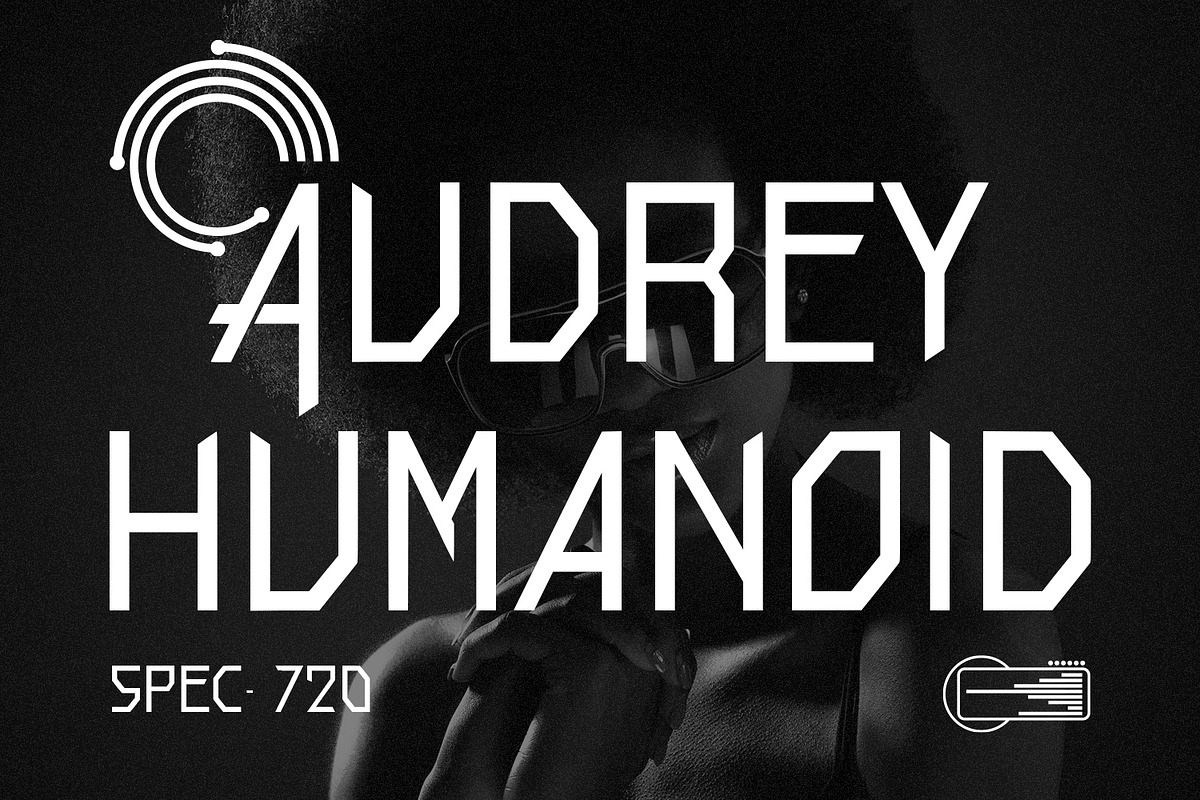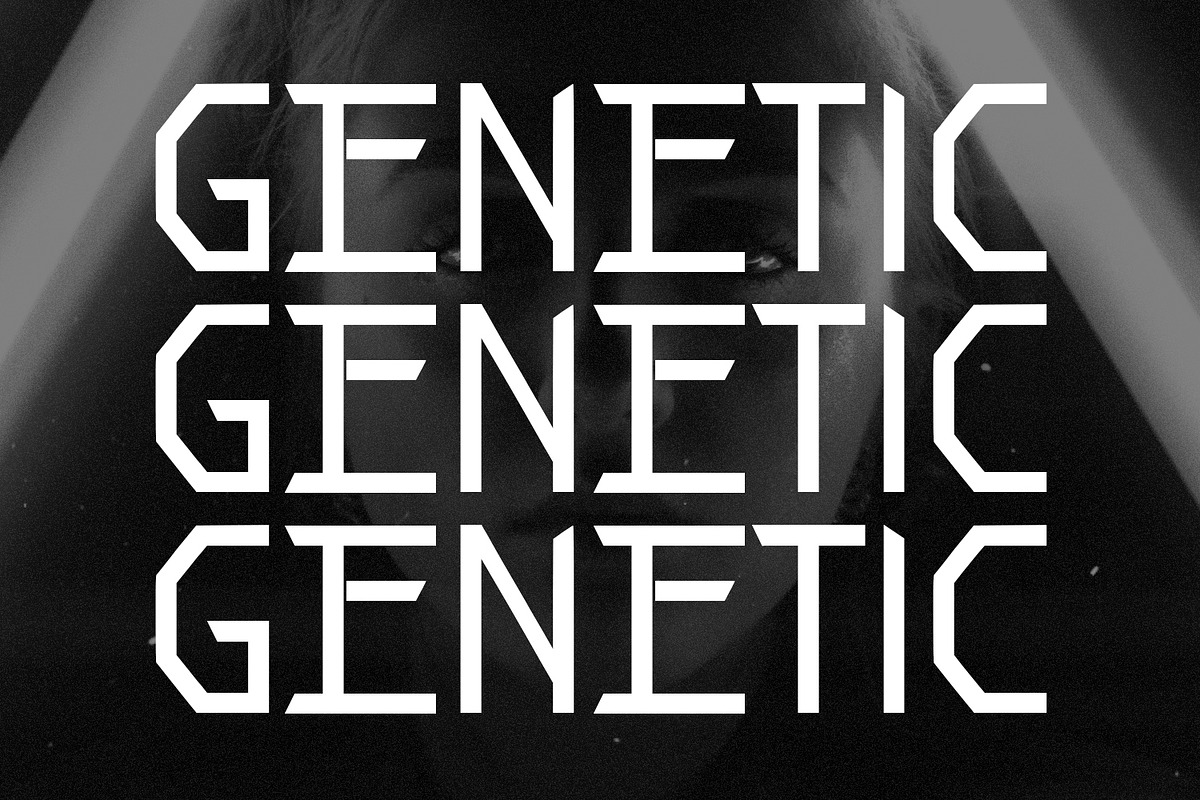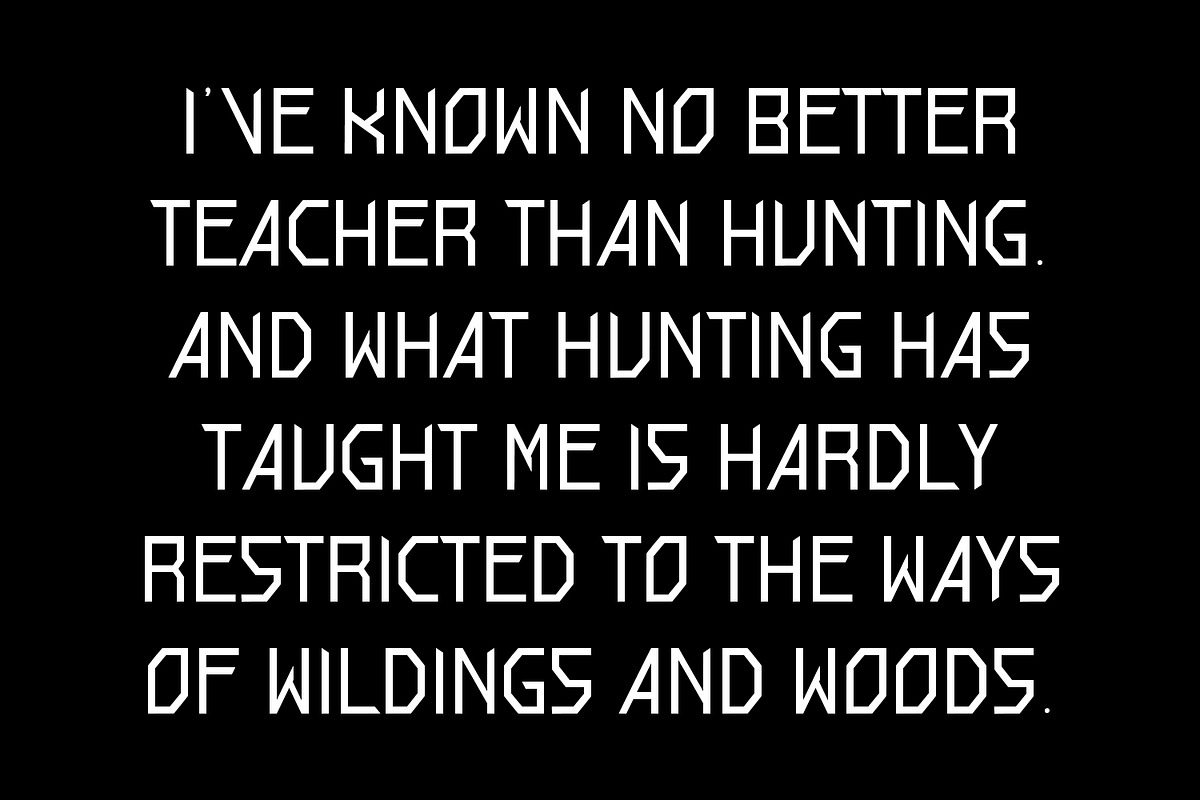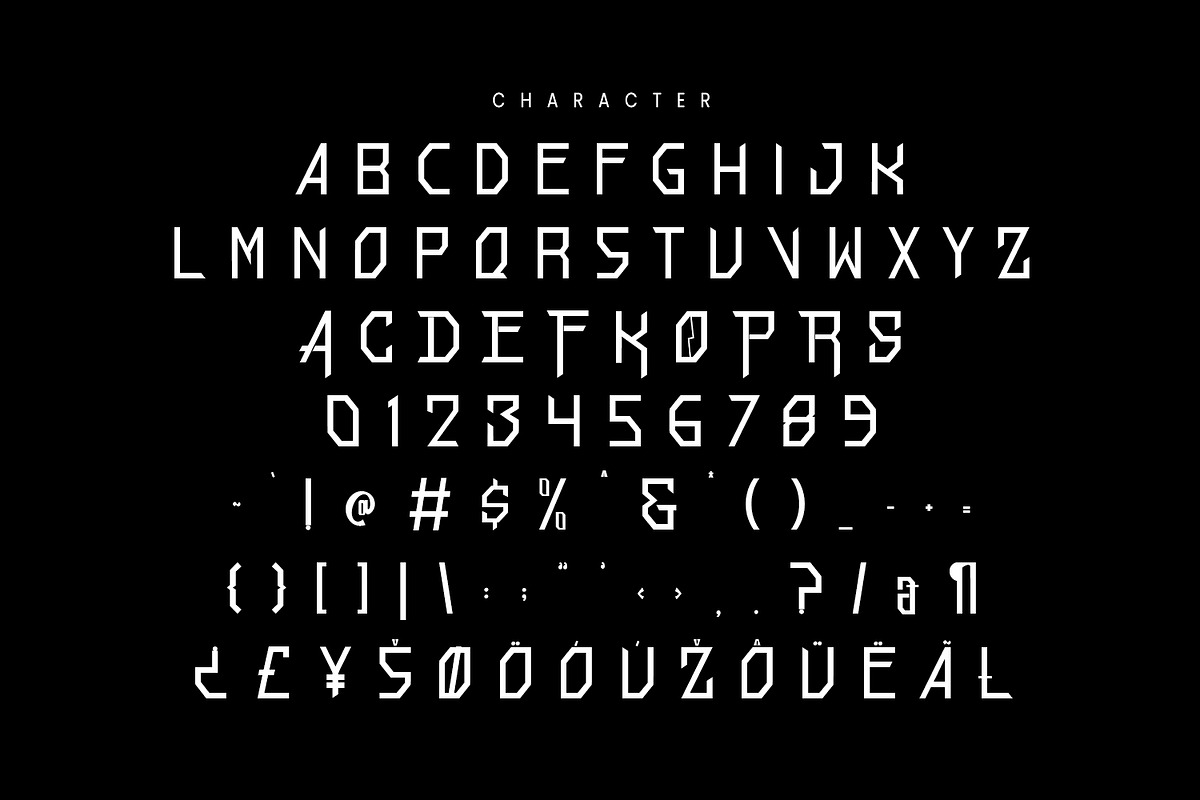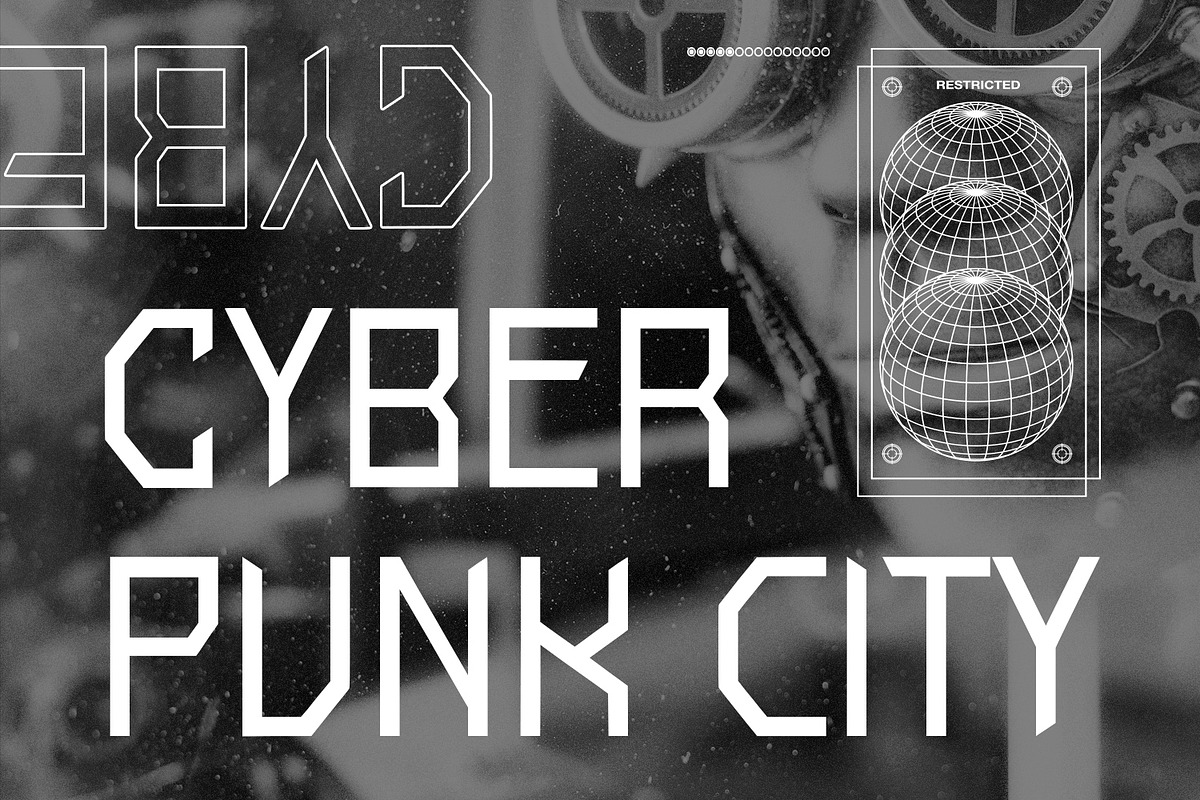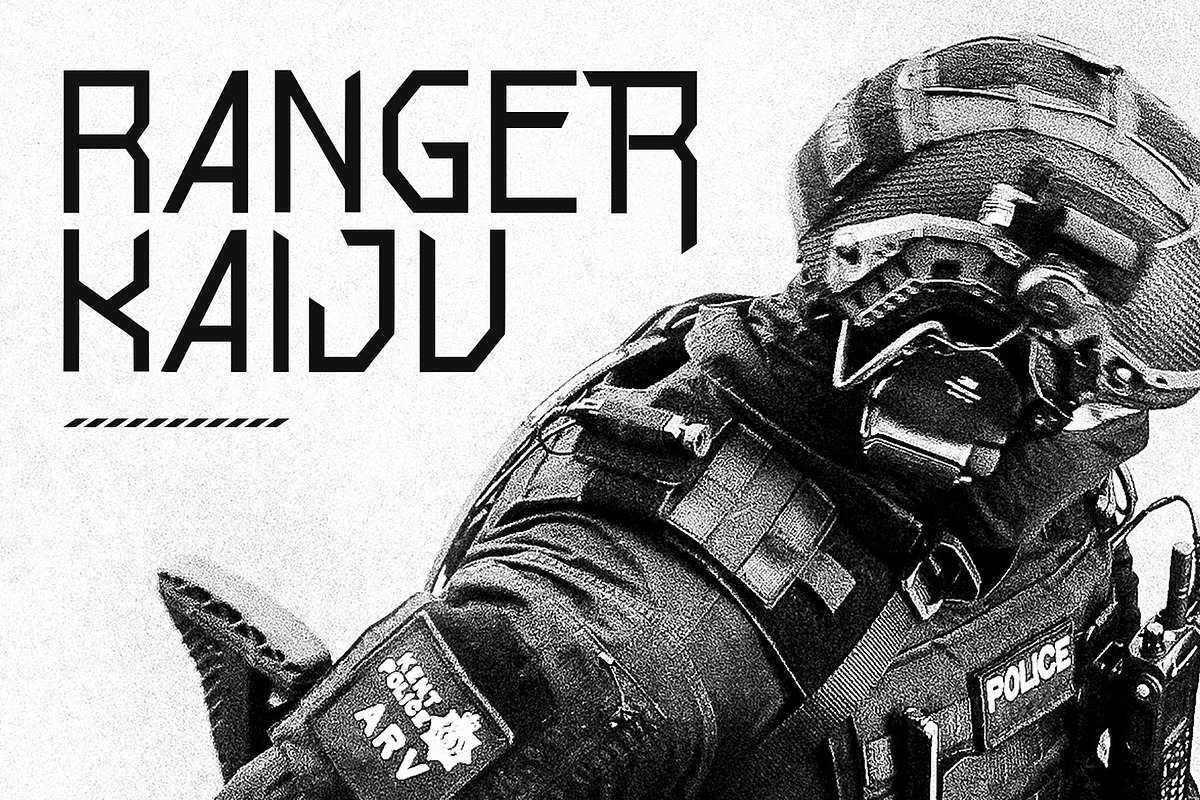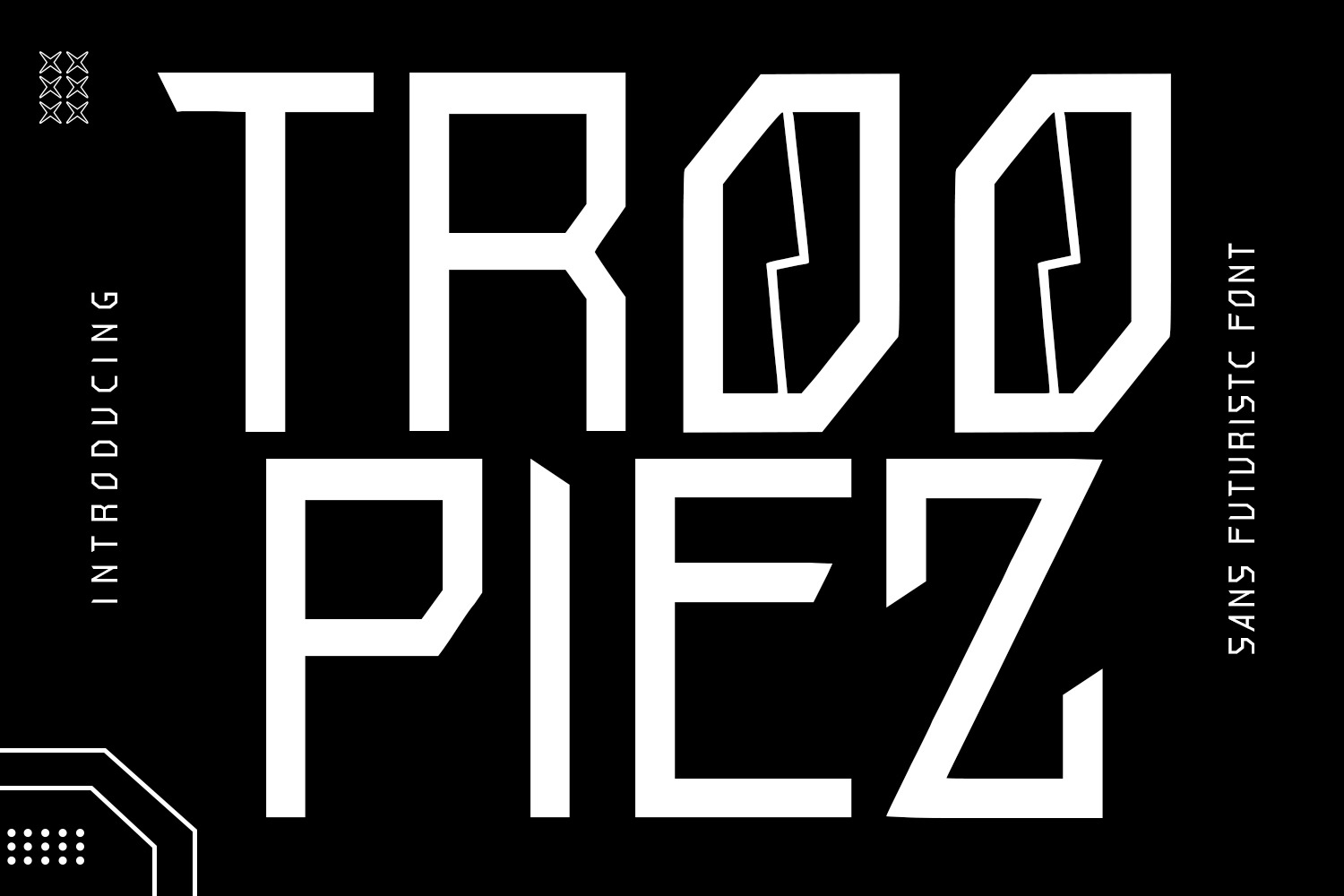
Troopiez Futuristic Font
Troopiez futuristic display font. Fun character with alternates. To give you an extra creative work. Troopiez futuristic display font support multilingual language. This font is good for logo design, Social media, Movie Titles, Books Titles, a short text even a long text letter and good for your secondary text font with script or serif. Make a stunning work with Troopiez futuristic display font.